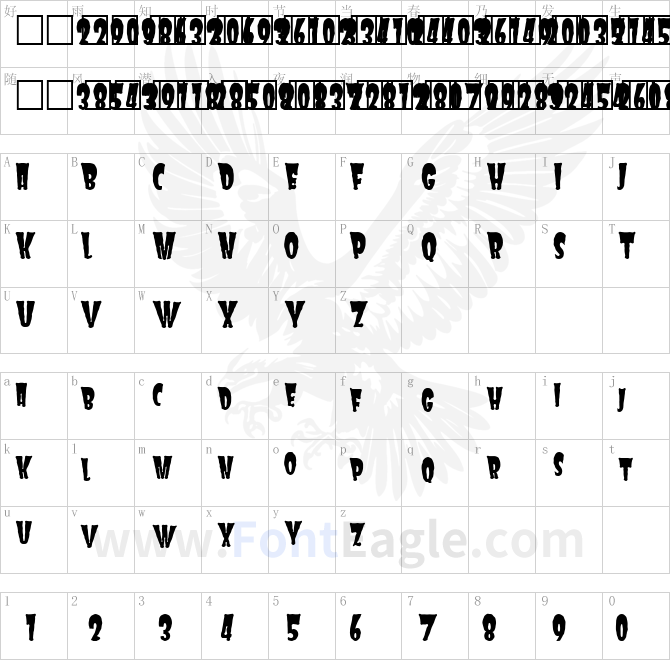
Frankie is a great font, widely used in graphic design, single-page menu design, poster design and other fields, and is deeply loved by designers.Frankie download.